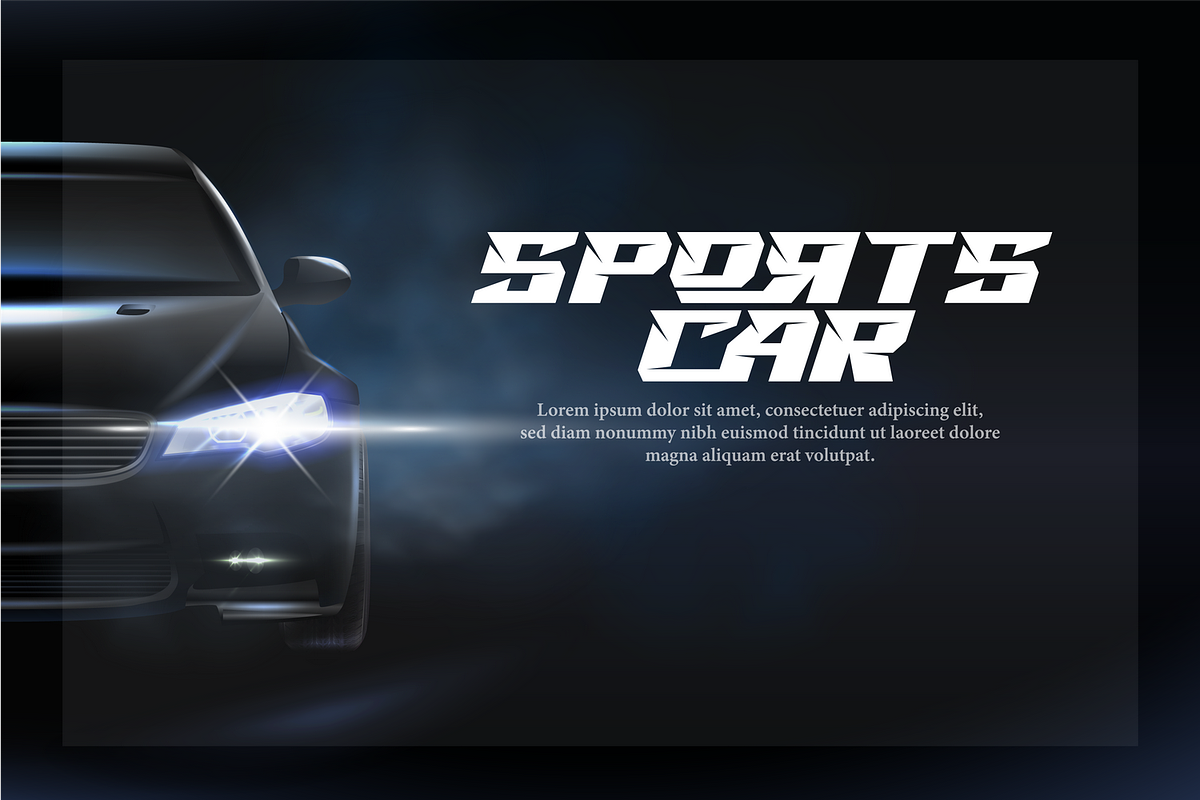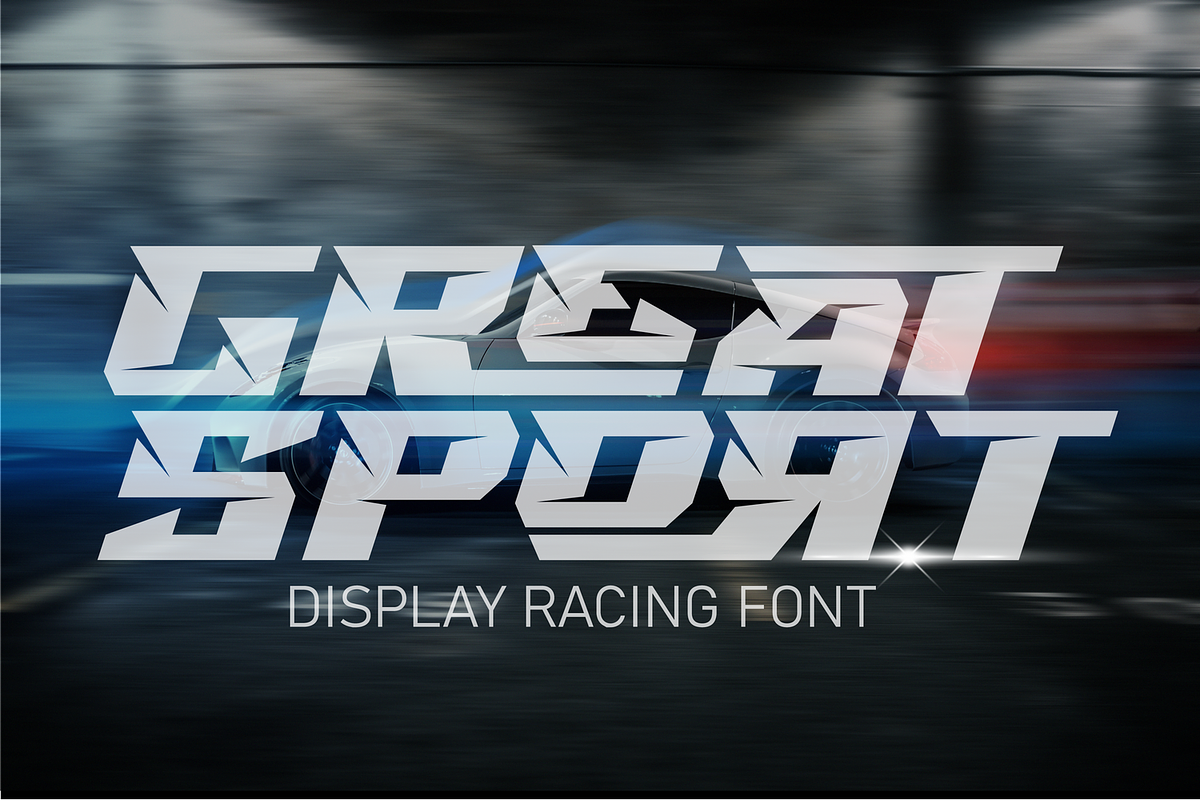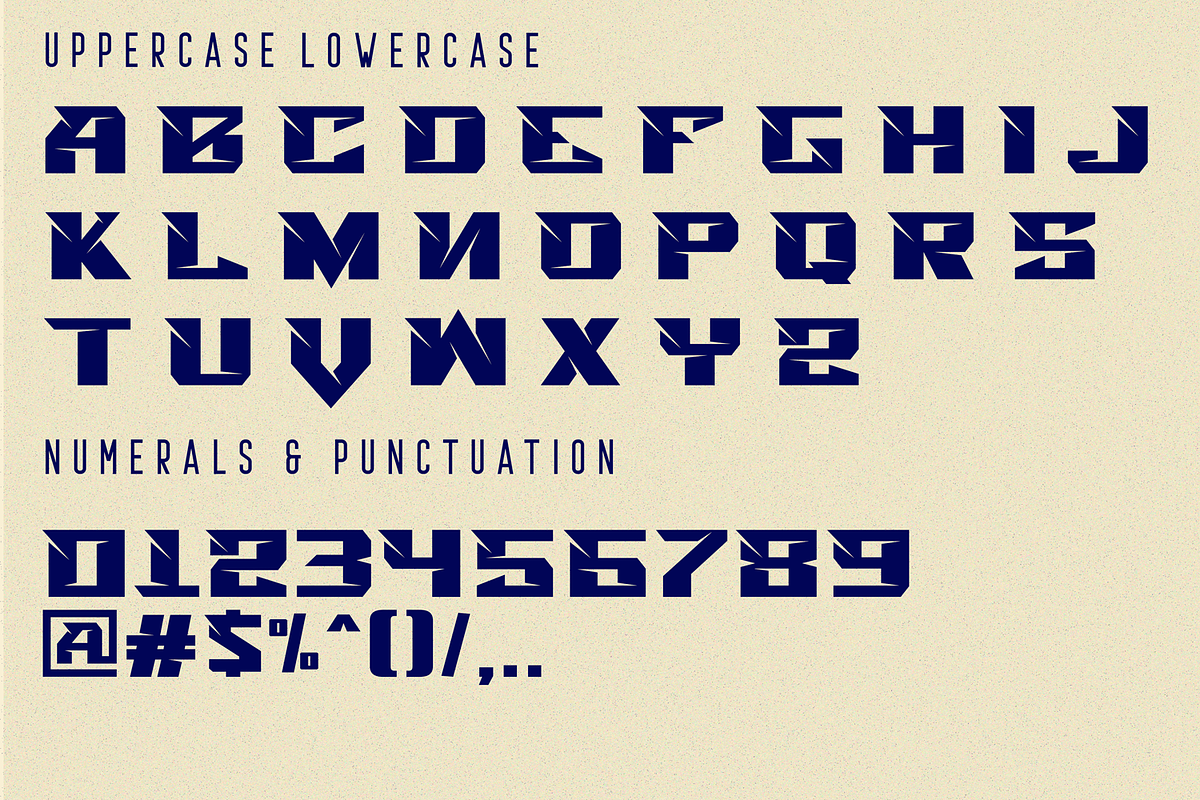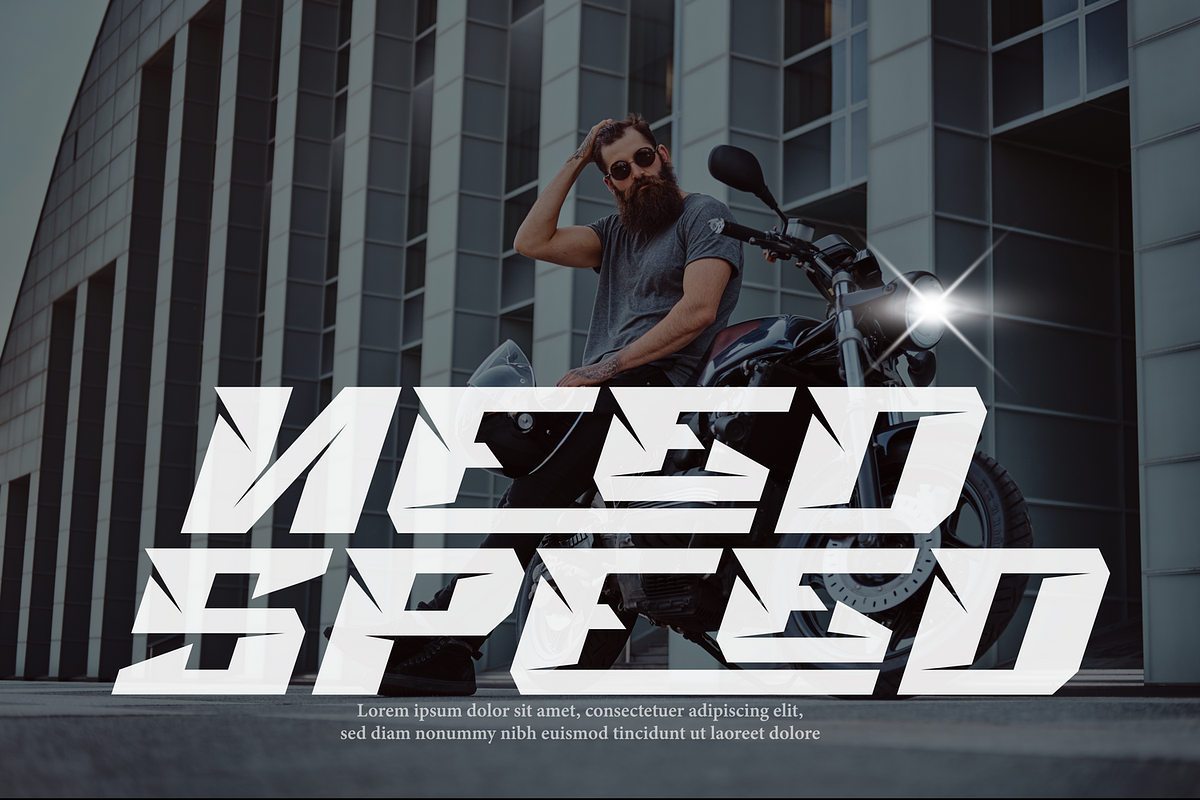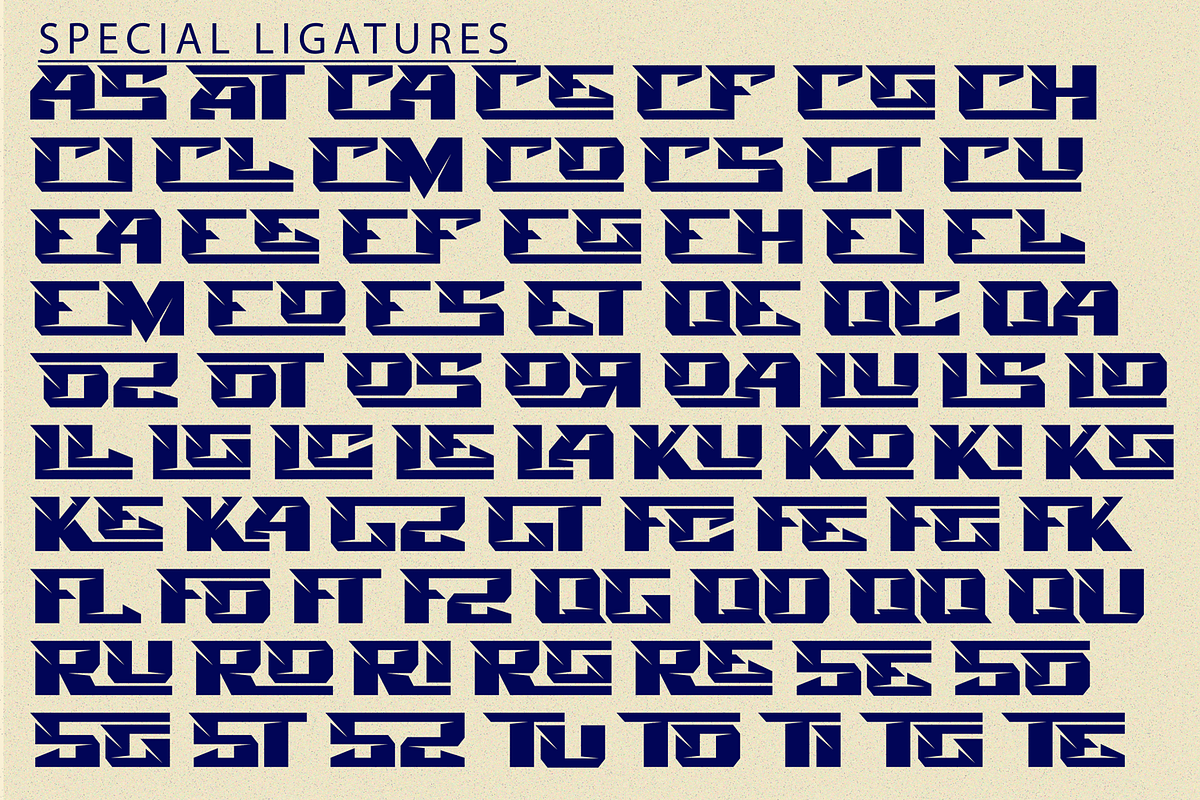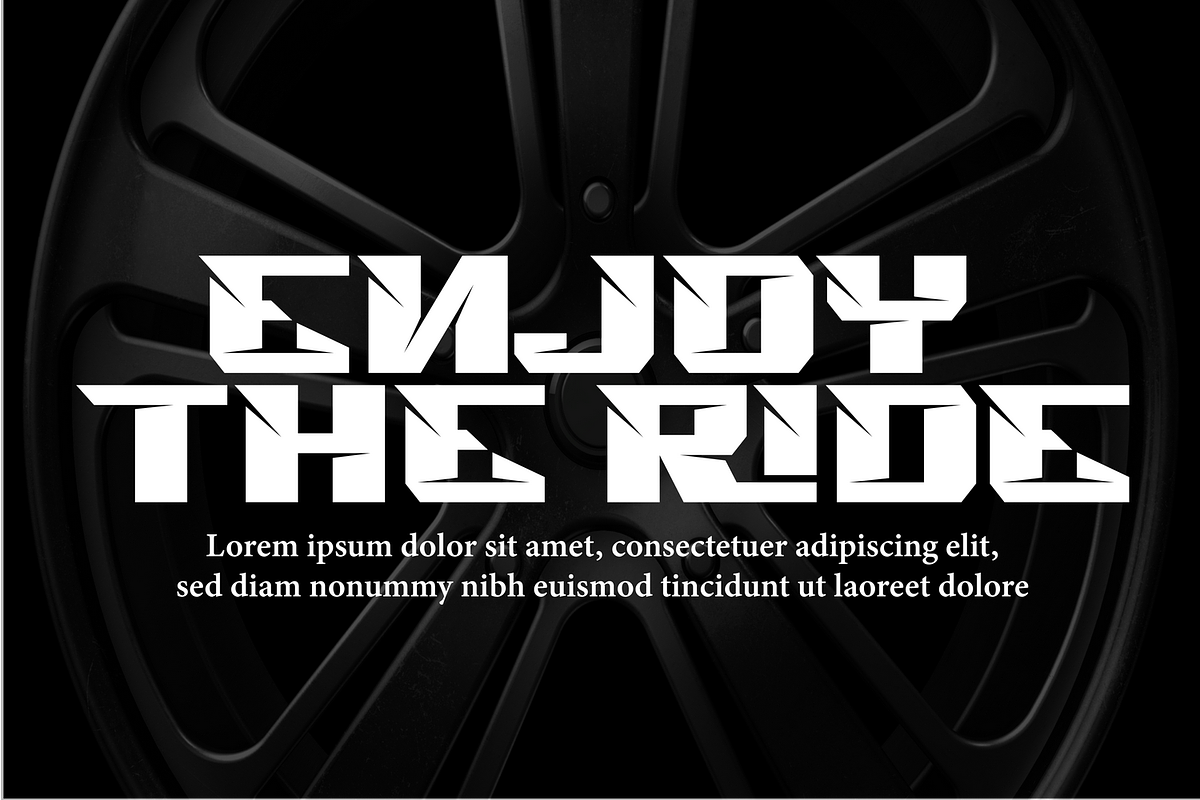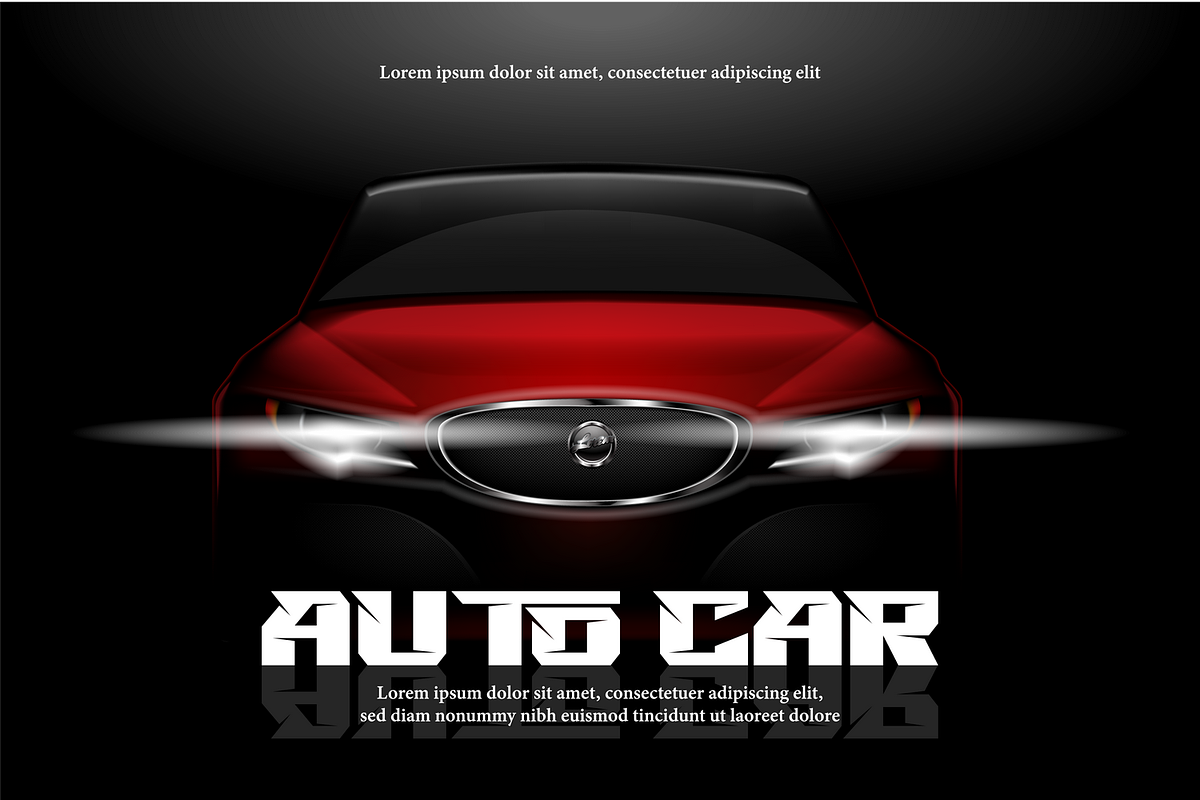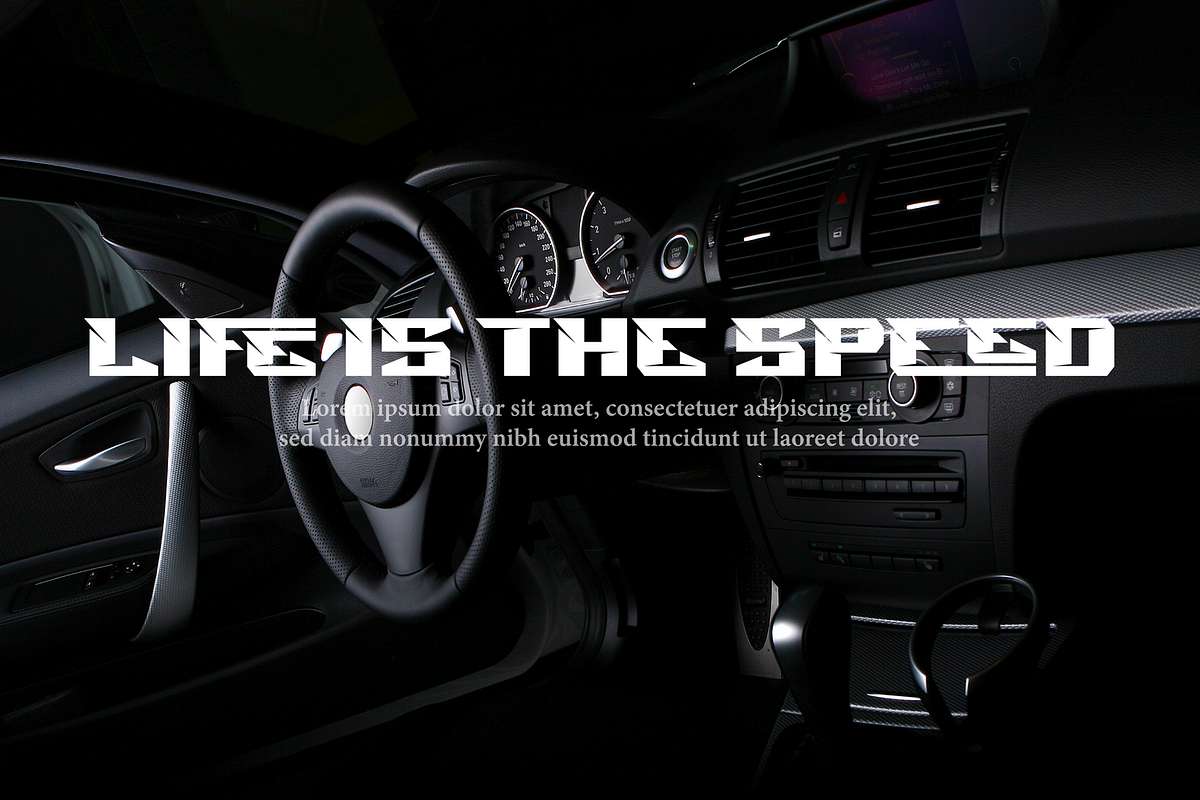
Great Sport Font
Great Sport Font is an awesome sports font with wide italic fonts, modern cutouts, and dynamic slant. Ideal for fast car racing sports titles, running matches, cycling, automotive game logos and monograms or other modern dynamic text. It's a wide modern font, this typeface has smooth curves and a visual style a can embodies charm and elegance in every lettering, making your work look stunning and attractive.
To make it look more unique, here we prepared some ligatures:
AS AT CA CE CF CG CH CI CL CM CO CS CT CU EA EE EF EG EH EI EL EM EO ES ET QE QC QA OZ OT OS OR OA LU LS LO LL LG LC LE LA KU KO KI KG KE KA GZ GT FC FE FG FK FL FO FT FZ QG QO QQ QU RU RO RI RG RE SE SO SG ST SZ TU TO TG TE TI
- Special Ligatures